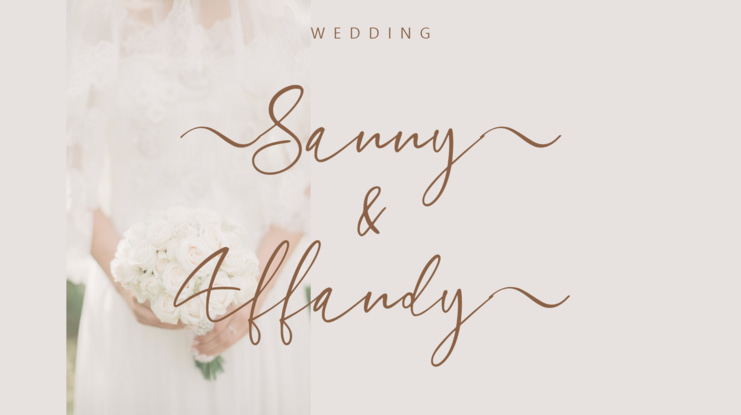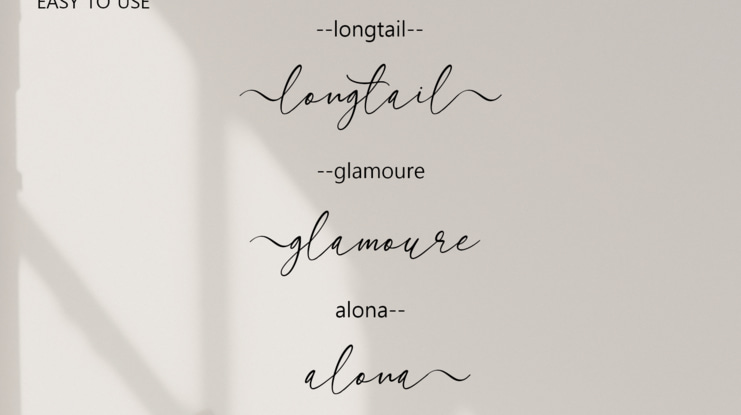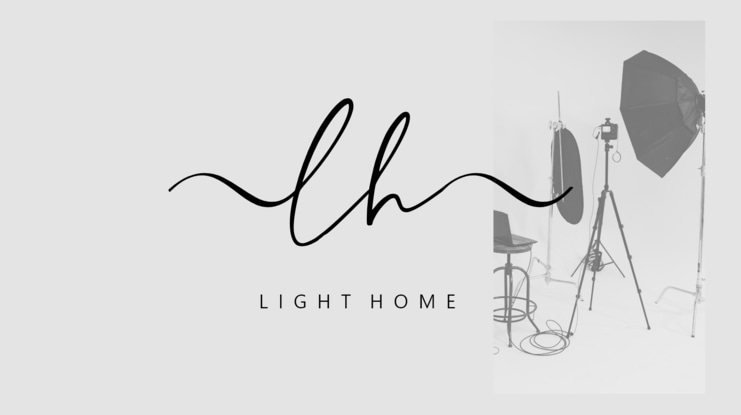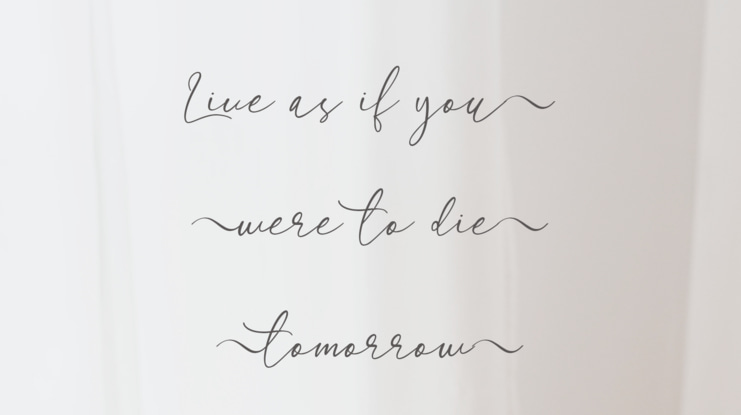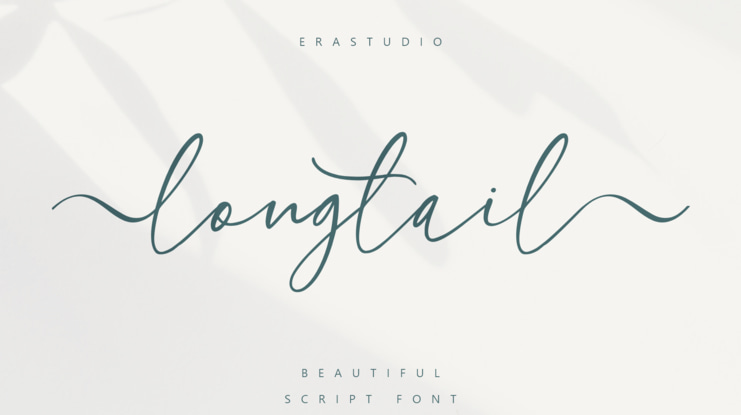
longtail Font
longtail is a modern calligraphy font with handwriting, a captivating flow. It's perfect for wedding invitations, and cards.
longtail includes a full set of beautiful uppercase and lowercase letters, which will be perfect for all kinds of your printing techniques such as embroidery, laser cut, gold foil, etc.